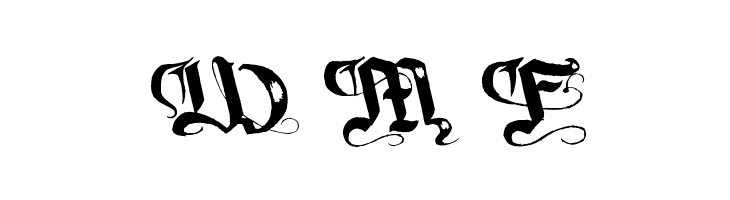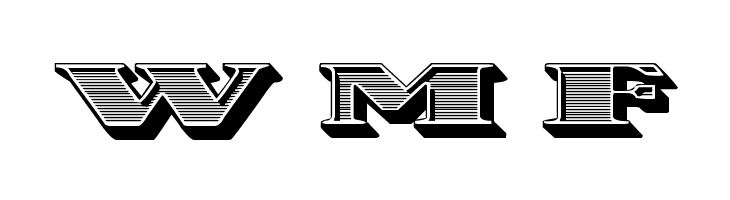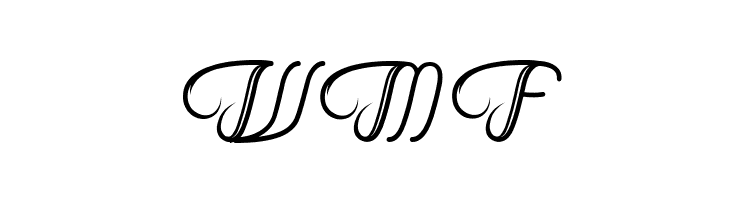
A playful and whimsical script font with fluid, interconnected letterforms.
A bold, geometric font with sharp angles and a blocky appearance.
A bold, decorative font with a vintage western style and three-dimensional effect.
A dynamic, handwritten font with artistic flair and varying stroke thickness.
An ornate Blackletter font with gothic and medieval influences.
A bold, geometric font with unique cut-out sections for a modern, impactful look.
A hand-drawn, artistic font with elongated, irregular letterforms.
An elegant, flowing cursive font with interconnected letters.
A bold, decorative font with a 3D shadow effect and striped pattern.
A bold, playful font with rounded strokes and a bubble-like appearance.
A bold, distressed font with a grunge, vintage appearance.
A bold, geometric font with strong symmetry and modern appeal.
A bold, distressed font with a vintage, textured appearance.
A bold, distressed stencil font with a rugged, industrial style.
A dynamic, handwritten font with artistic flair and playful character.
A bold, geometric font with a modern, industrial aesthetic.
Bold, stencil-like font with a rugged, distressed appearance.
An elegant, italic script font with flowing cursive strokes.